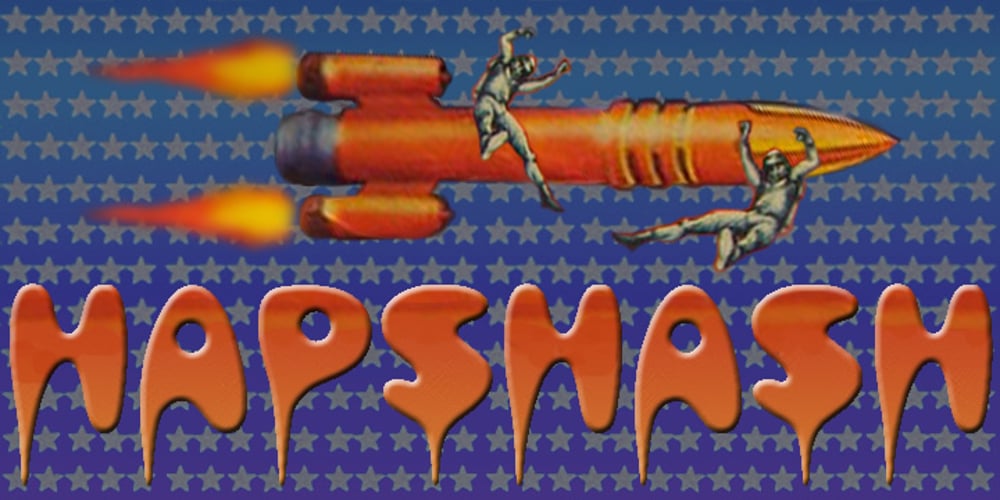
Hapshash Font Family was designed by Keith Bates and published by K-Type. Hapshash contains 1 styles and family package options. Hapshash is an all capitals font inspired by the 1960s psychedelic posters of British designers Hapshash and the Coloured Coat (Michael English and Nigel Waymouth), in particular their 1968 poster for the First International Pop Festival in Rome.